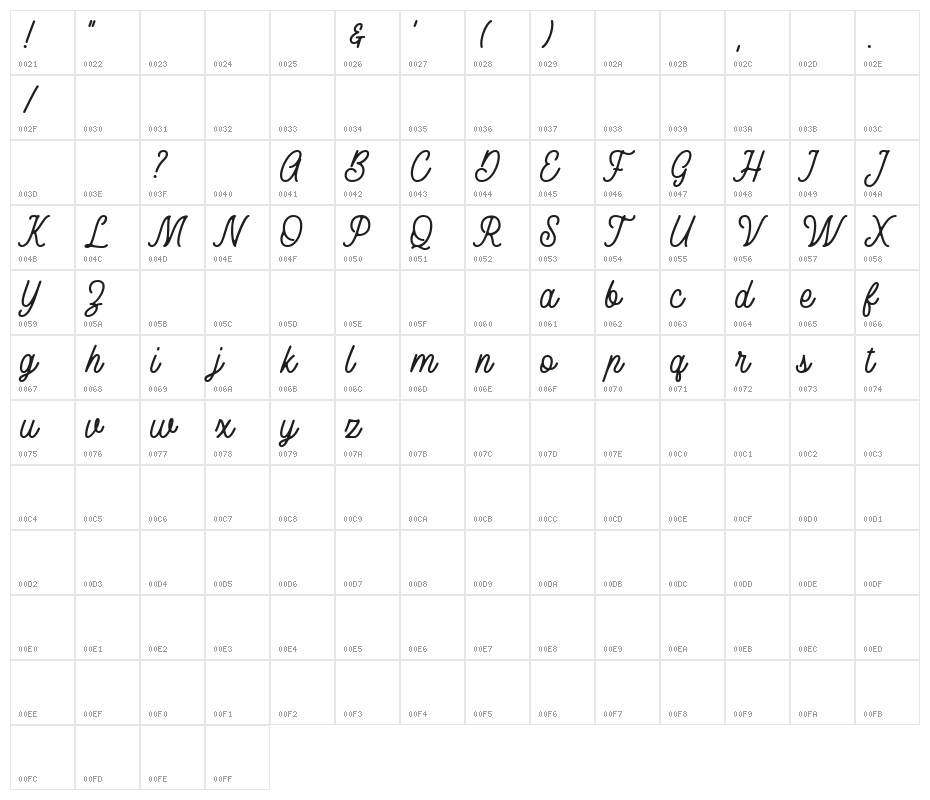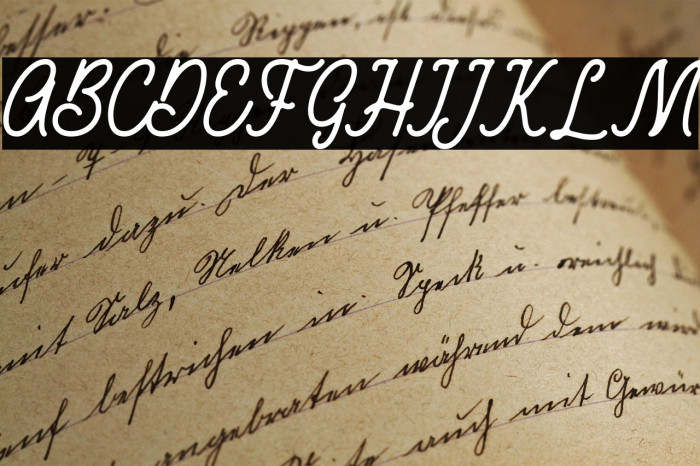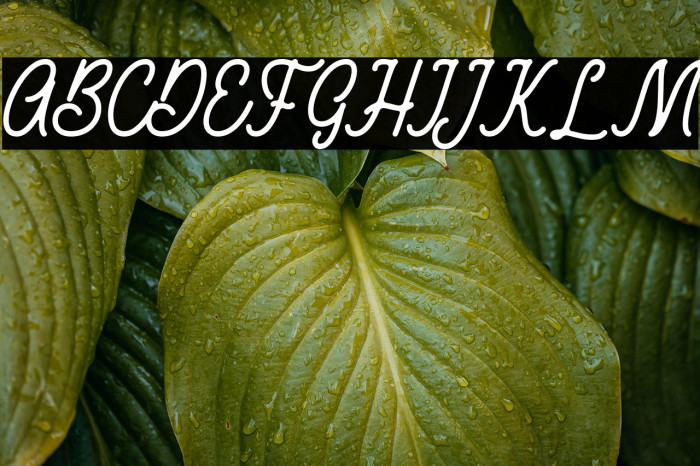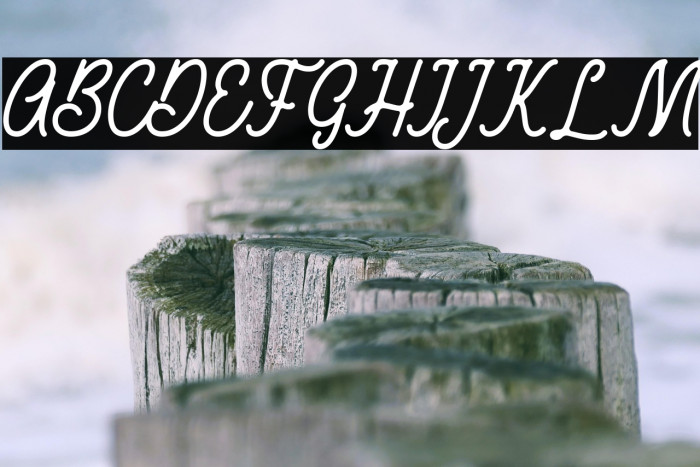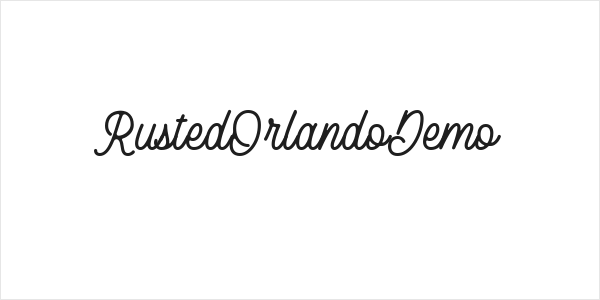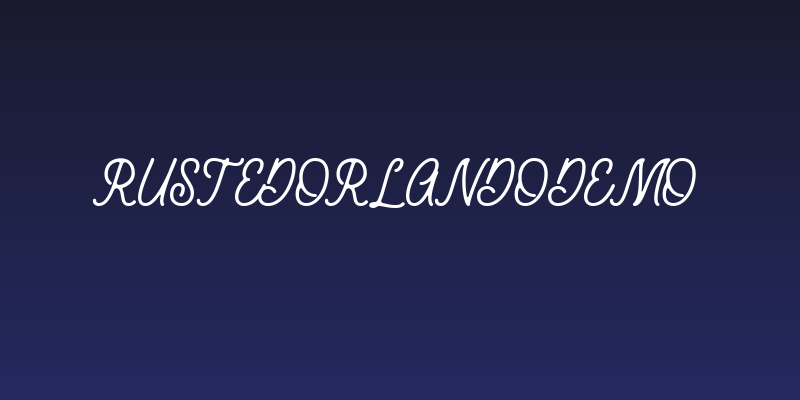
RustedOrlandoDemo Font
RustedOrlandoDemo Description
This font features a flowing, cursive style that combines elegance with a touch of playfulness. The uppercase letters are characterized by their smooth, looping strokes, while the lowercase letters maintain a consistent fluidity that enhances readability. The font's design includes a slight slant, adding to its dynamic appearance. The characters are well-spaced, ensuring clarity even in smaller sizes. The special characters retain the same cursive charm, making them blend seamlessly with the alphabet. This font is ideal for projects that require a personal, handwritten touch.